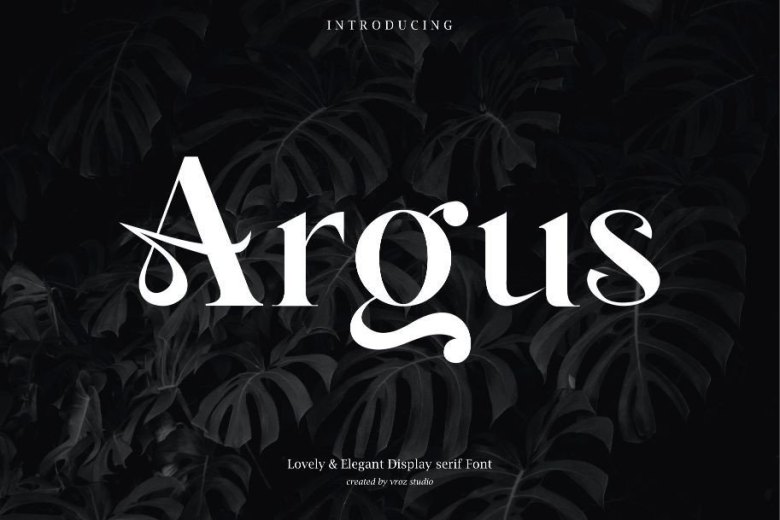
Argus Font
Argus Agris Lovely & Elegant Serif Font is perfect for numerous projects such as fashion magazines branding, logo invitations, photography wedding invitations as well as blog headers, quotes posters, books, postcards, websites etc.
Argus Elegant Serif Font